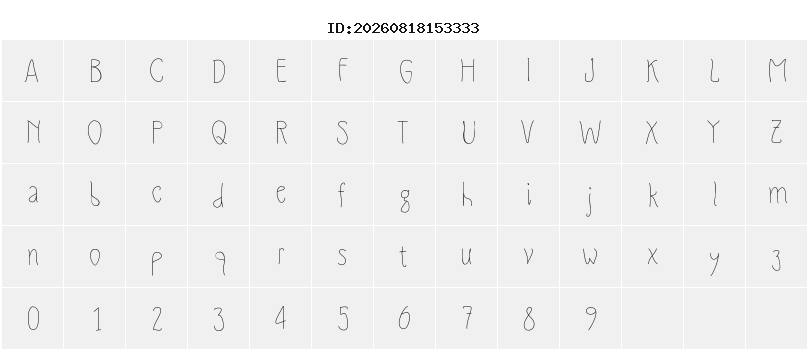
Slimamif Preview
• Font Name: Slimamif
• Font ID: DmitriZdorov:Slimamif
• Full Font Name: Slimamif
• PostScript Name: Slimamif
About Slimamif.ttf
Slimamif.ttf is a modern, elegant sans-serif font designed for ultimate readability and visual harmony. Perfect for branding, headlines, web design, and print materials.